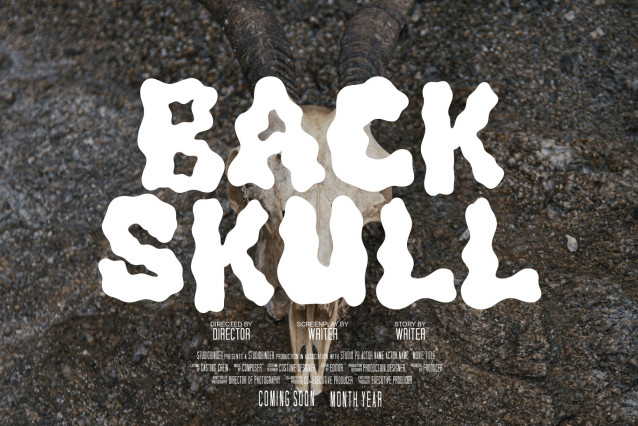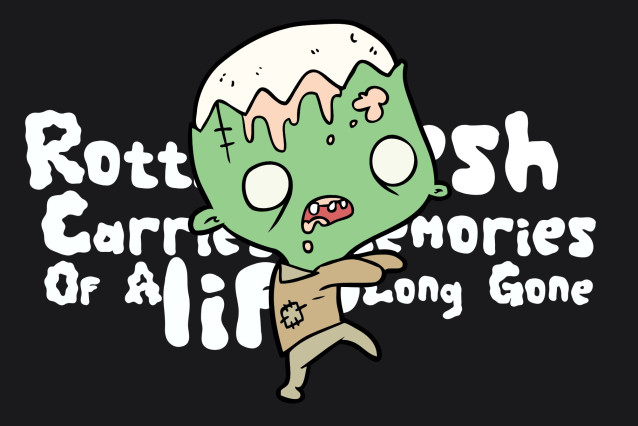
Blob Freak Font
Blob Freak crawls out of the grave as a quirky, undead-inspired display font perfect for Halloween-themed designs. With its gooey, mutated letterforms and eerie, uneven flow, this typeface oozes with zombie charm and spooky energy. Whether you’re crafting haunted party invites, horror merch, or creepy YouTube thumbnails, Blob Freak brings the fright with style.